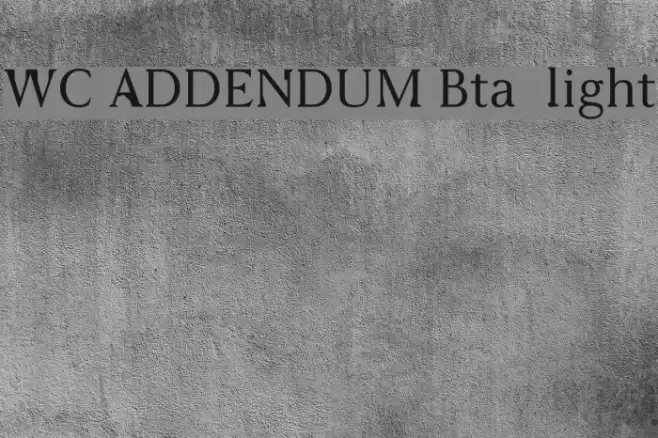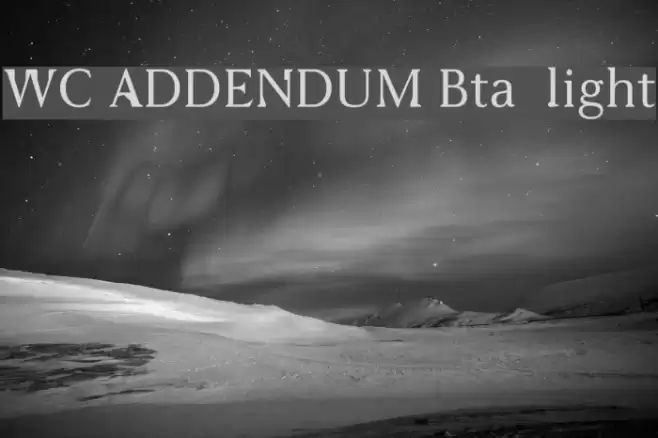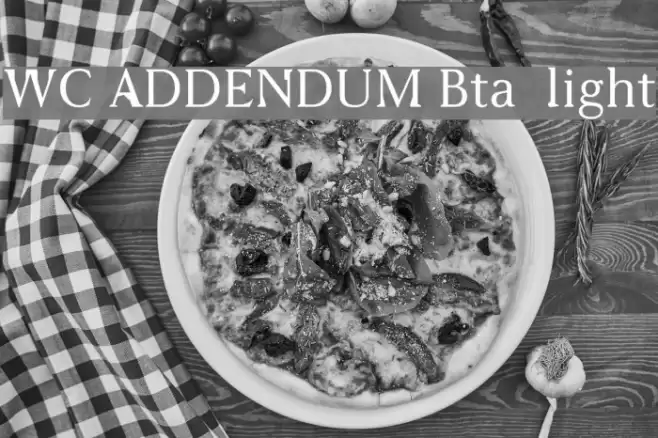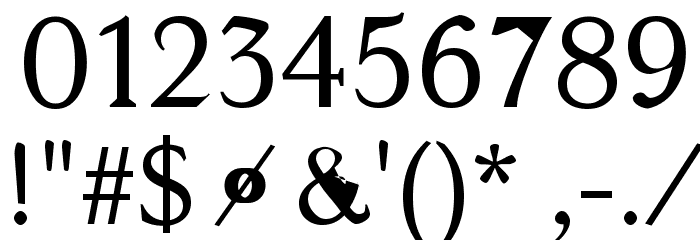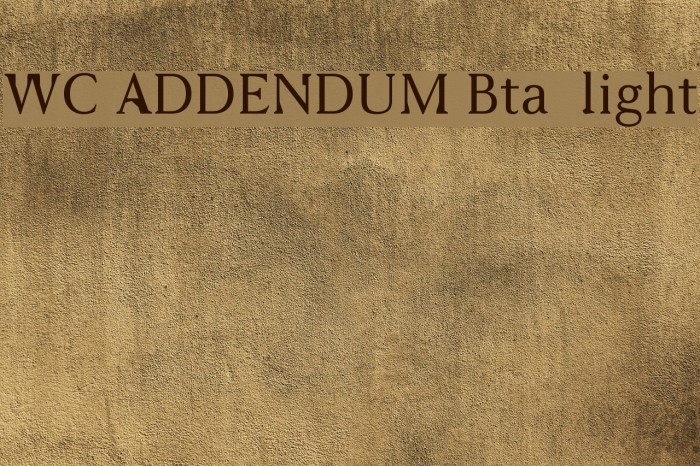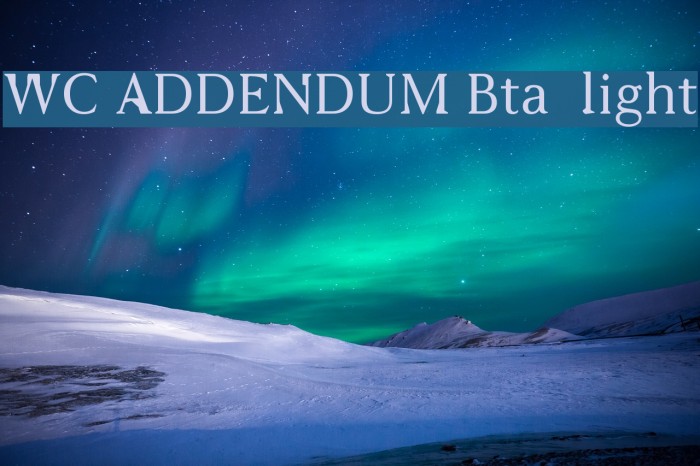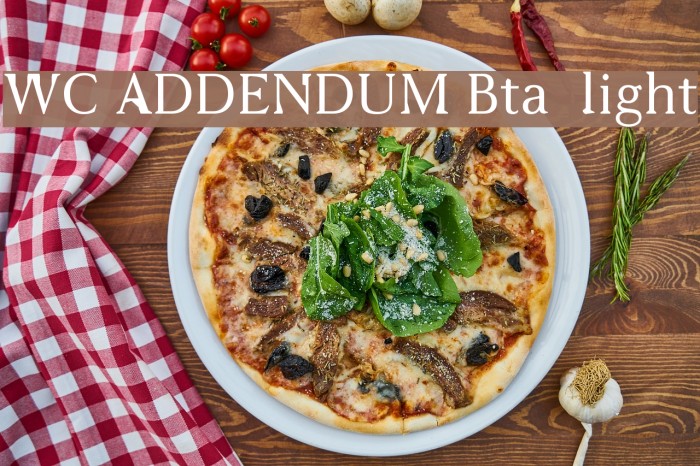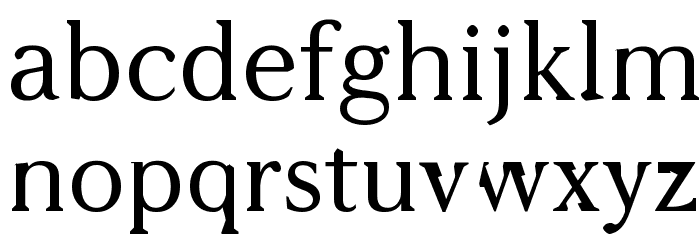
WC ADDENDUM Bta light Font
WC ADDENDUM Bta light Description
This font exhibits a classic serif style with a modern twist, characterized by its elegant and refined letterforms. The uppercase letters are bold and commanding, while the lowercase letters maintain a graceful and fluid appearance. The numerals are clear and distinct, ensuring readability. The special characters are well-integrated, maintaining the overall aesthetic of the font. The strokes are consistent, with moderate contrast that adds to the font's readability and visual appeal. This font is versatile, suitable for both formal and contemporary designs.
A classic serif font with modern elegance and moderate contrast from Distorted Eroded fonts.
- Proposed Projects: Ideal for editorial design, book covers, branding, and formal invitations.
- Overall Style: Classic